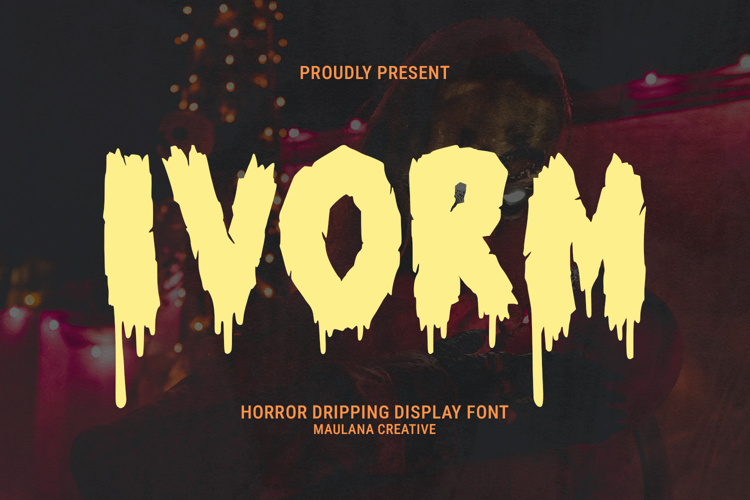
Ivorm Bold Horror Dripping Display Font
IVORM is a bold horror dripping display font that brings a chilling, blood-curdling effect to any design. With its thick, heavy strokes and melting drip details, this typeface perfectly captures the essence of gore, slime, and horror.
Ideal for Halloween posters, scary movie titles, haunted house flyers, creepy merchandise, game logos, or any dark-themed project, IVORM adds instant shock value and a terrifying atmosphere. Its dripping style makes it look alive, as if letters are bleeding or melting right off the screen.
If you want your design to stand out and scream horror, IVORM is the ultimate choice.